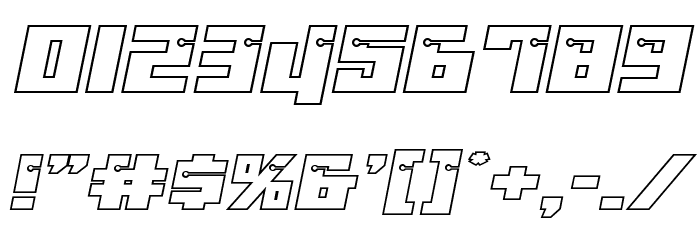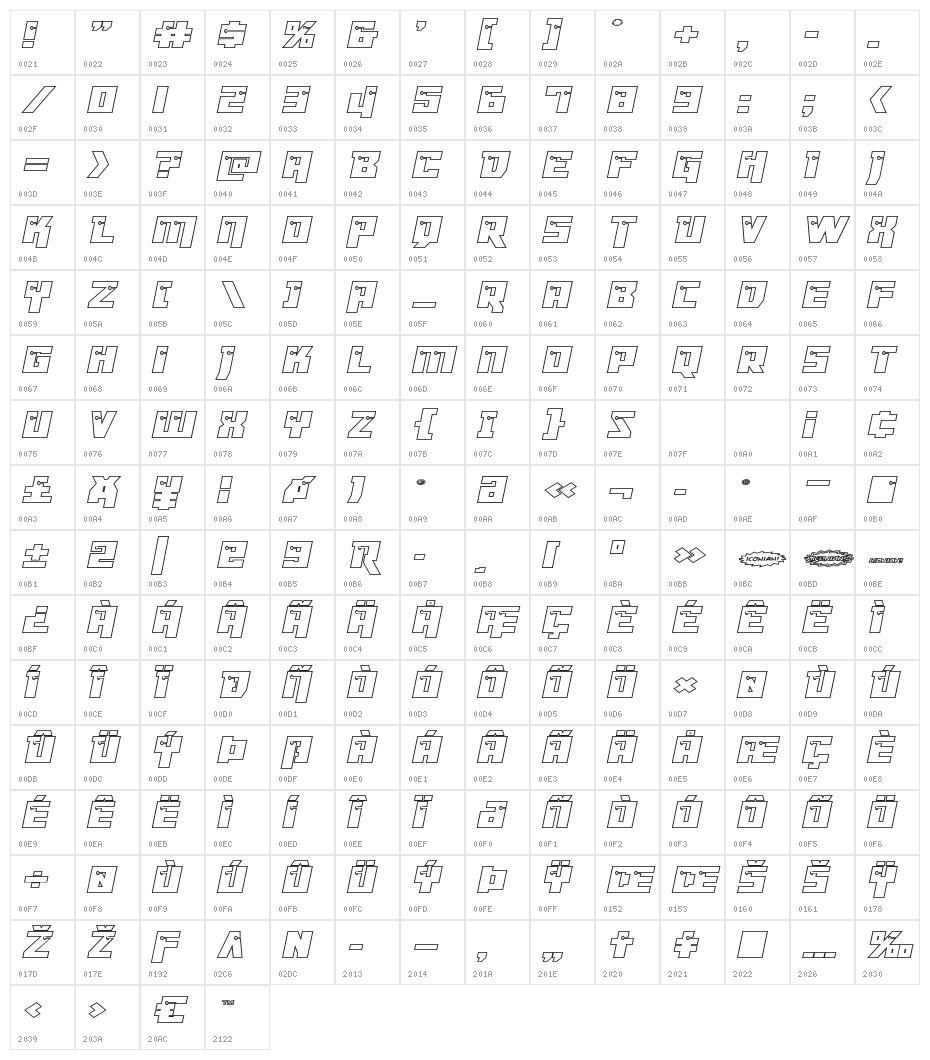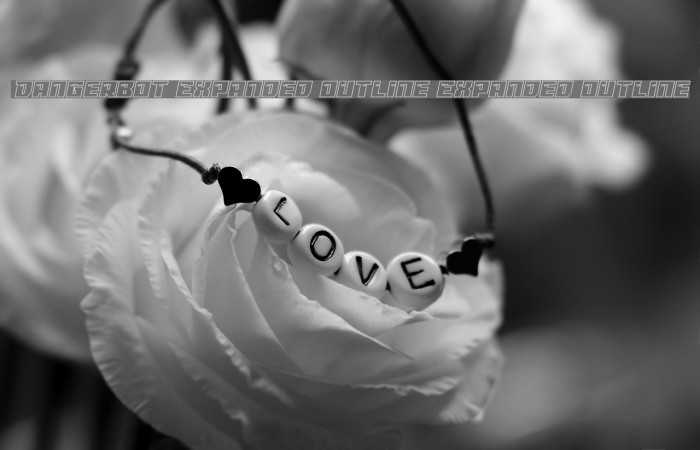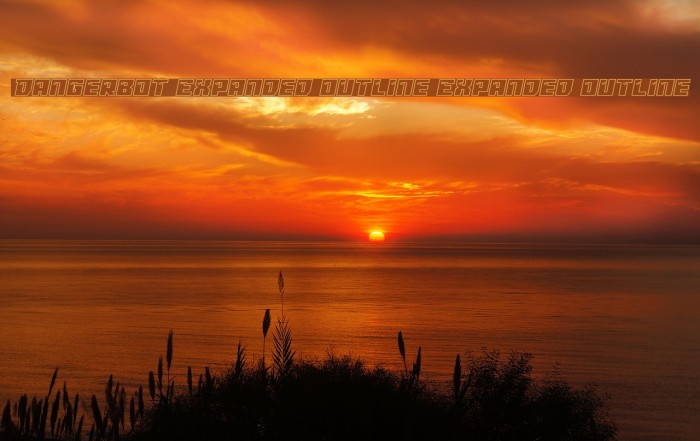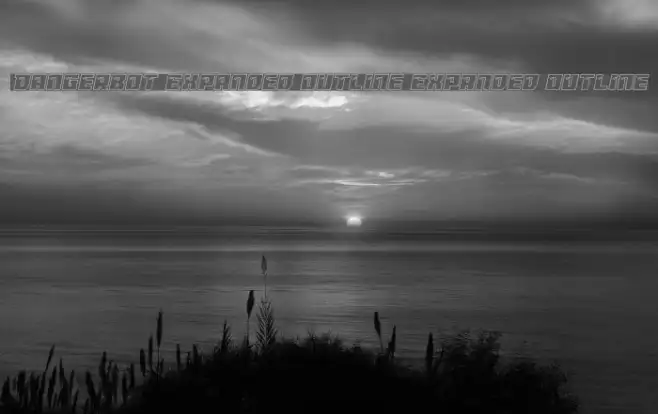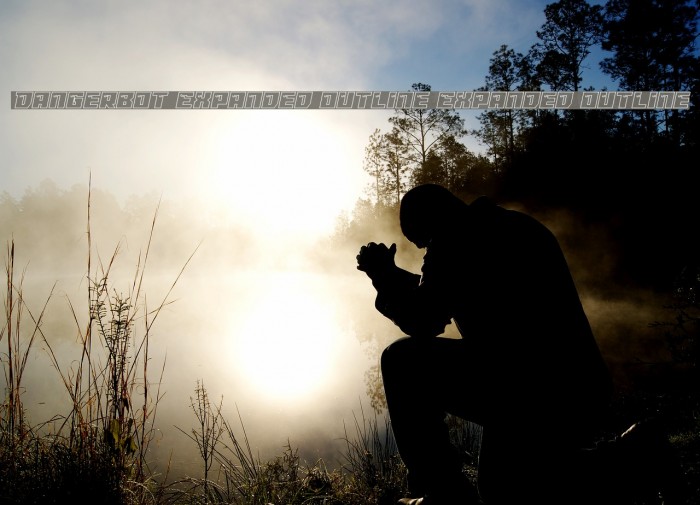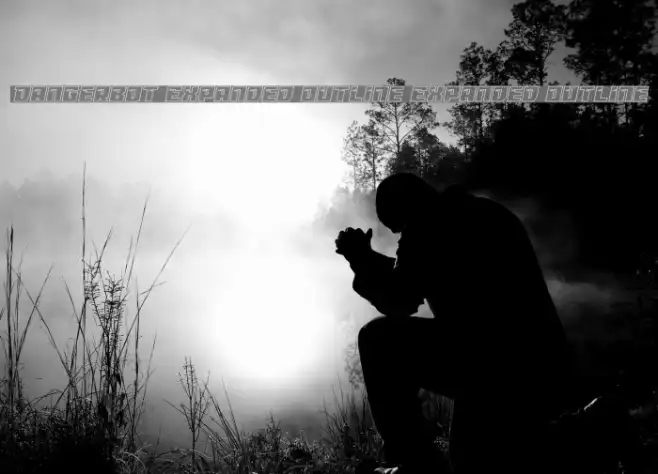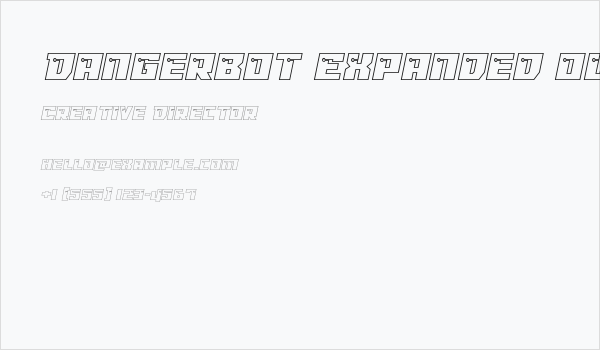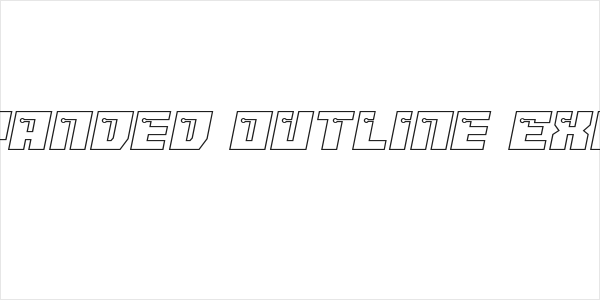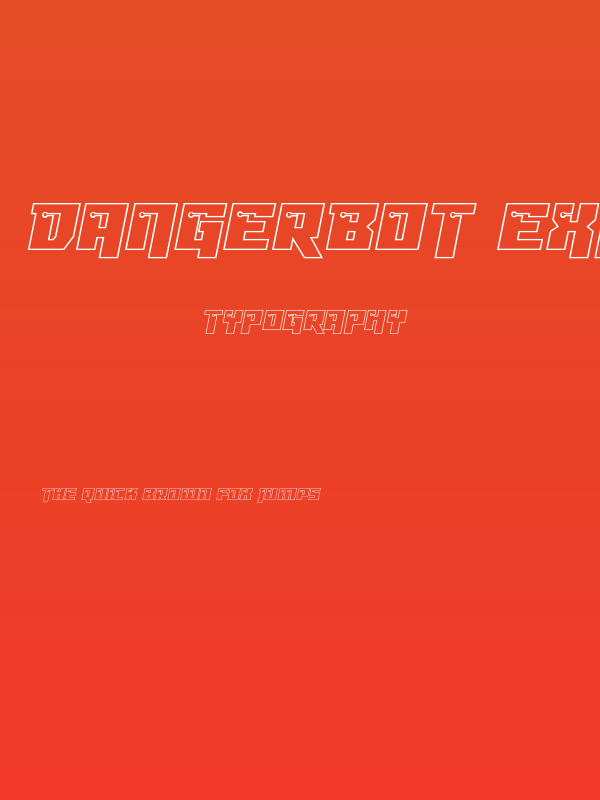
Dangerbot Expanded Outline Font
Dangerbot Expanded Outline Description
This font features a bold, futuristic design with an expanded outline style. The characters are angular and geometric, giving them a robotic and technological appearance. Each letter and number is outlined, creating a hollow effect that enhances its modern and edgy look. The font maintains a consistent stroke width throughout, emphasizing its uniformity and precision. Its unique style makes it stand out, ideal for projects that require a strong visual impact.
Overall StyleFuturistic
Proposed ProjectsIdeal for sci-fi themed posters, video game titles, technology branding, and futuristic event flyers.